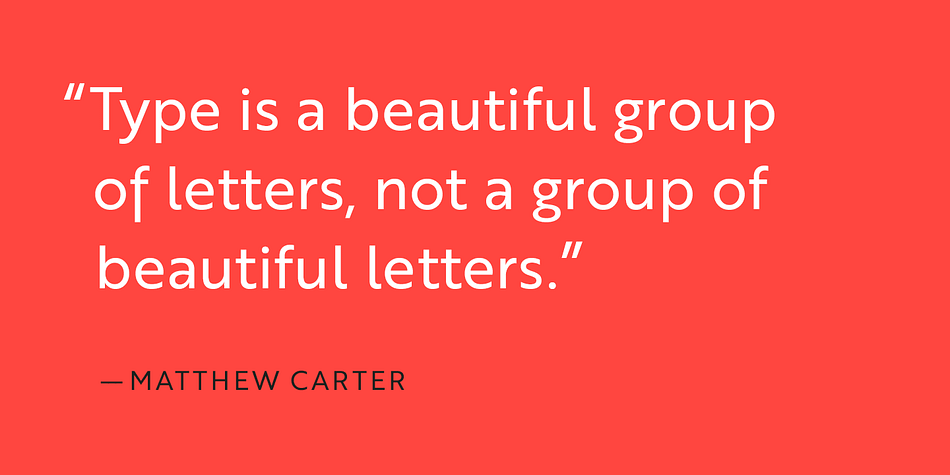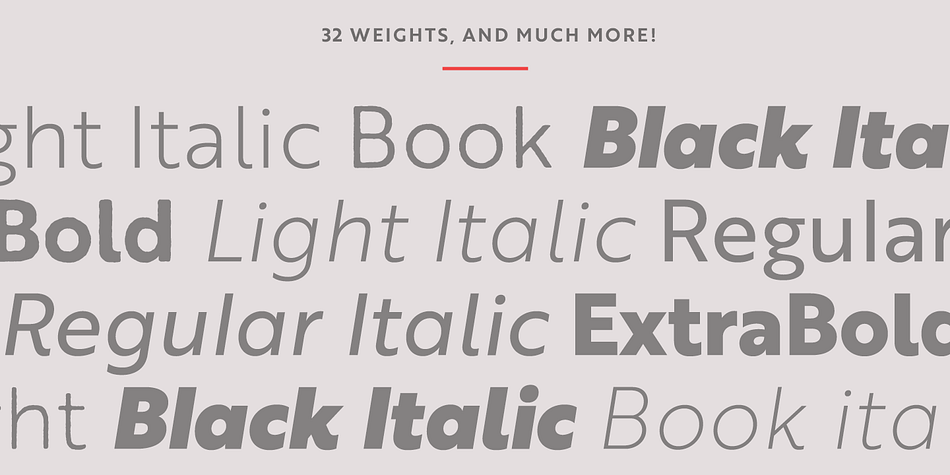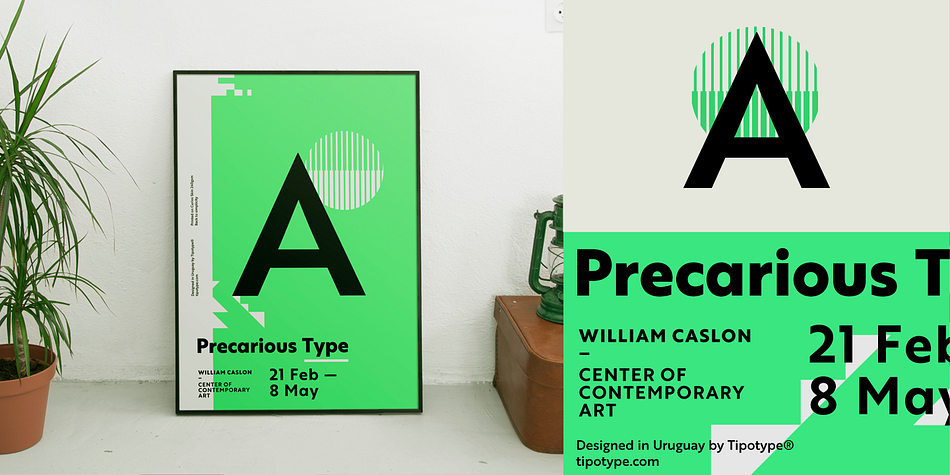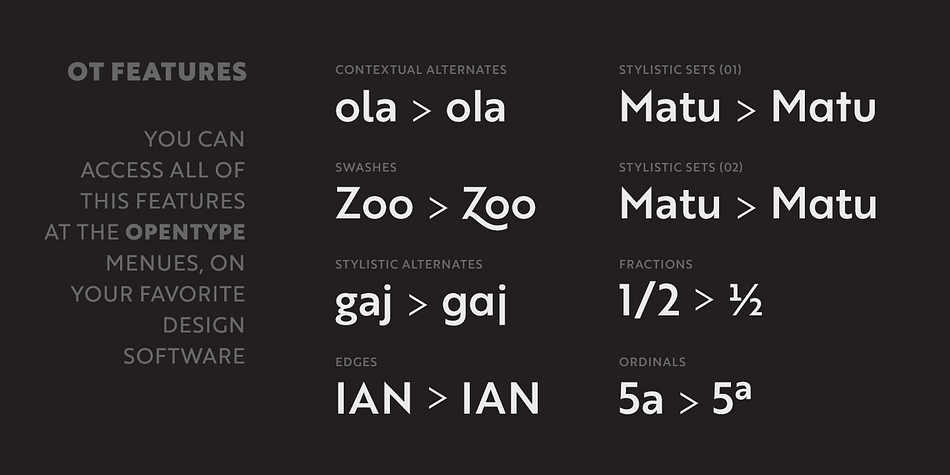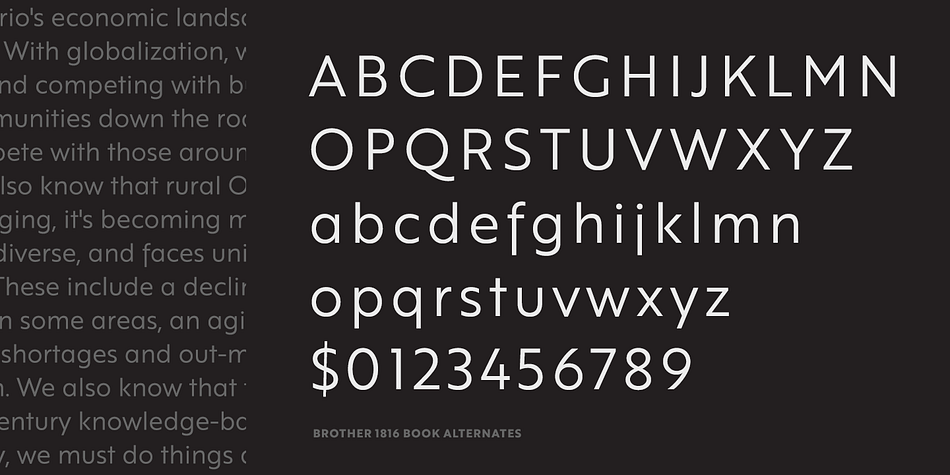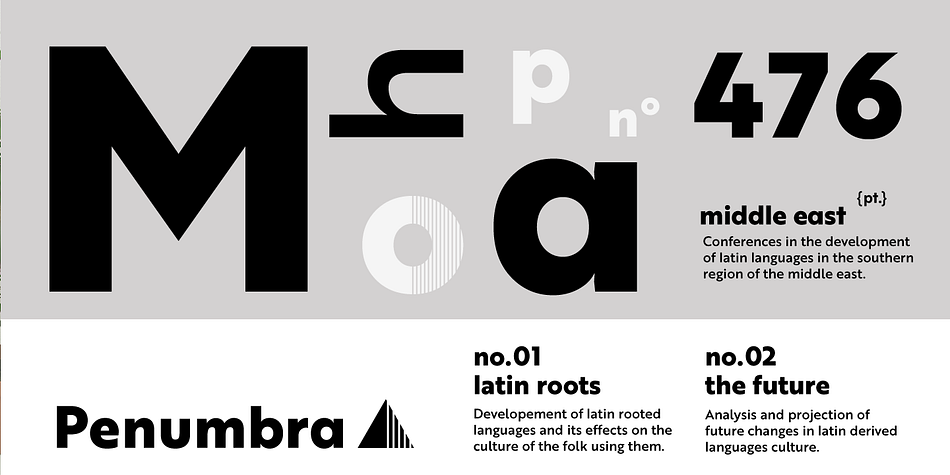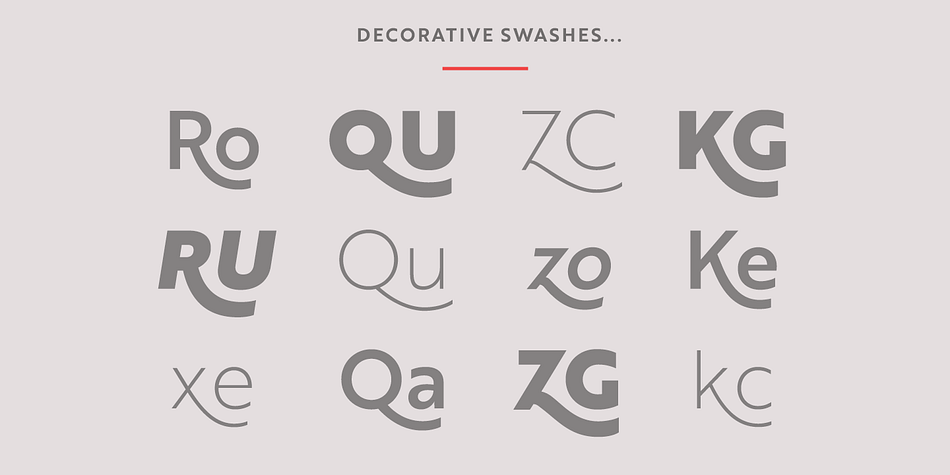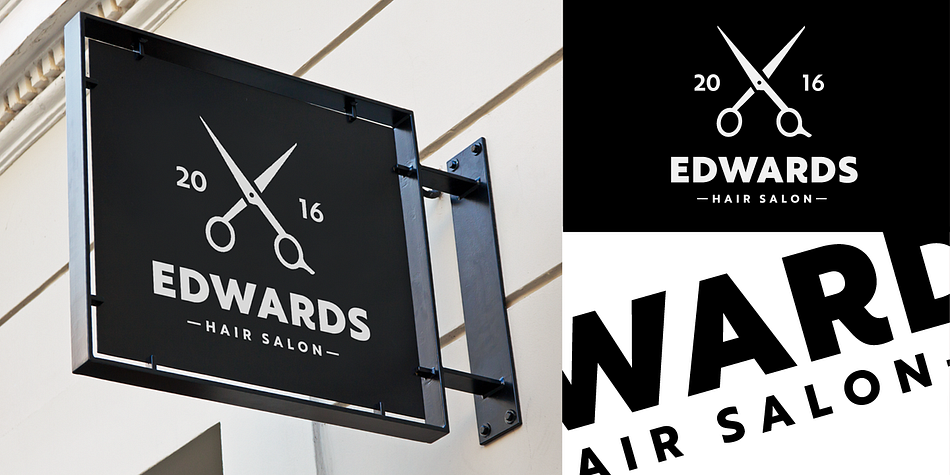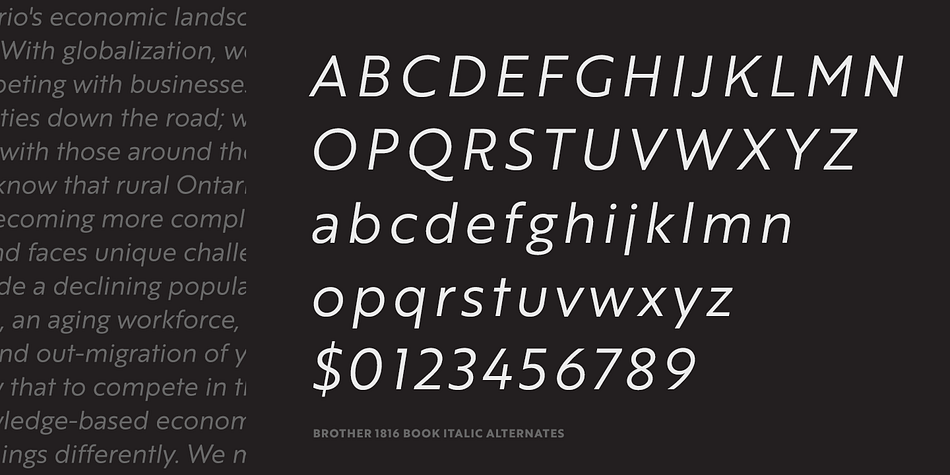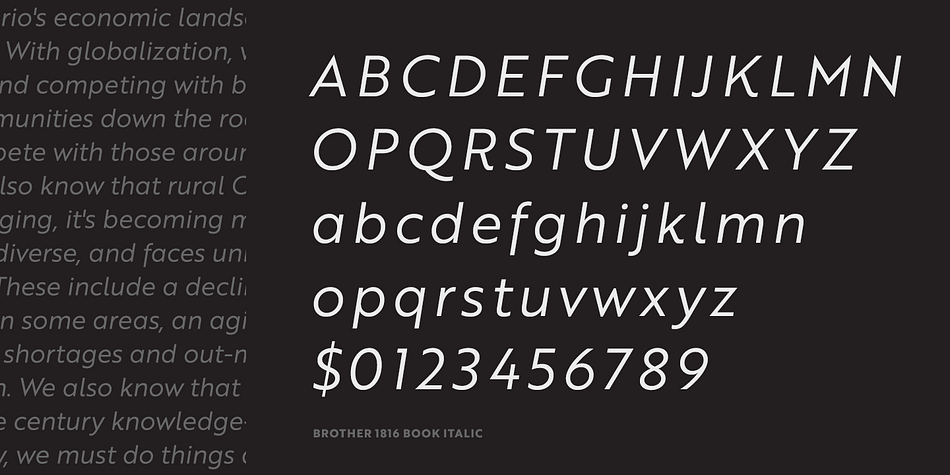
Designed by Ignacio Corbo and Fernando Díaz, Brother 1816 is a hand drawn and sans serif font family. This typeface has thirty-two styles and was published by TipoType.
In 2016, we commemorated the 200th anniversary of the first sans-serif typeface. What better way to celebrate, than to design our own sans-serif!
Brother 1816 is a very flexible, multifaceted and solid typeface, mixing Geometric shapes with Humanistic strokes at the same time. You can choose between a pure geometric or humanistic style, or even mix the +20 alternate characters to create the feeling that you need for your projects. Its humanistic nature makes it easy to read, legible in small sizes; perfect for branding, editorial and signage.
It’s geometric nature works for bigger applications in need of more personality, like branding, headlines, posters, etc… This makes Brother an excellent tool for an incredible wide range of uses. It has a total of 32 fonts, which are divided into 2 groups: normal (16 weights) & printed (16 weights). Each weight has +460 characters, +20 alternates, angular and straight edges, swashes, fractions, ordinals and much more….
Brother has also been specially designed for web (using hinting instructions), making it work in small and large sizes on different types of screen resolutions.